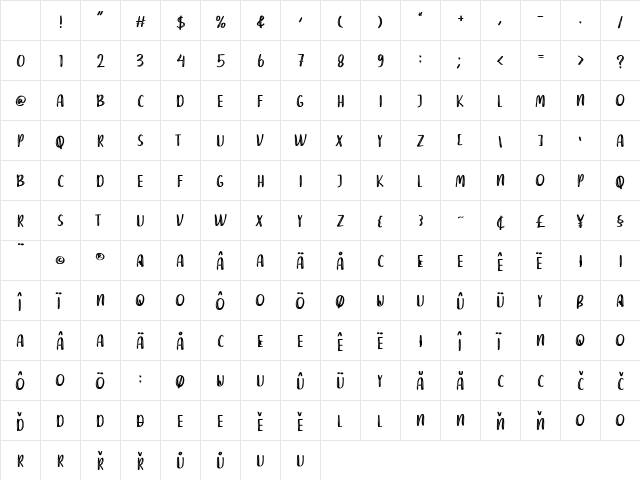
DEAR RAINA is a composed and adaptable typeface that performs quietly and consistently across a wide range of design contexts.
Pro Tip: Use DEAR RAINA in both headline and body roles to test its range before committing to a single application.